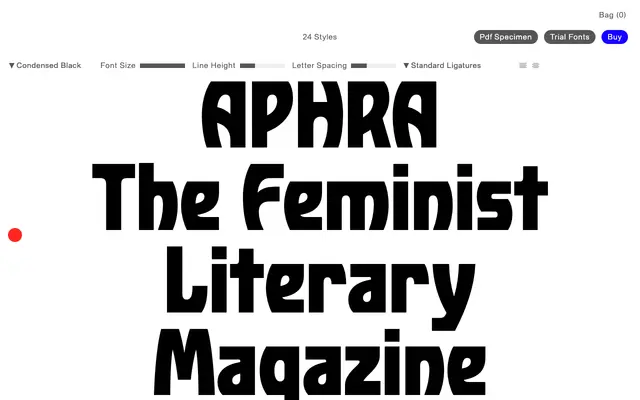
A grotesque sans in 24 styles across three widths and eight weights, from ExtraThin to ExtraBlack, suited to editorial and display work.
Spanning condensed, standard and wide cuts with eight weights in each, Phonk offers considerable range for typographic systems that need to work across varied column widths and hierarchies. The family includes OpenType features such as small capitals, old-style figures, tabular figures, case-sensitive forms and discretionary ligatures. No italic is included, keeping the family firmly in the upright grotesque tradition.
Phonk presents as a grotesque sans-serif with a broad width range spanning condensed, standard and wide cuts, suggesting industrial grotesque influences common to editorial and display-focused type families.